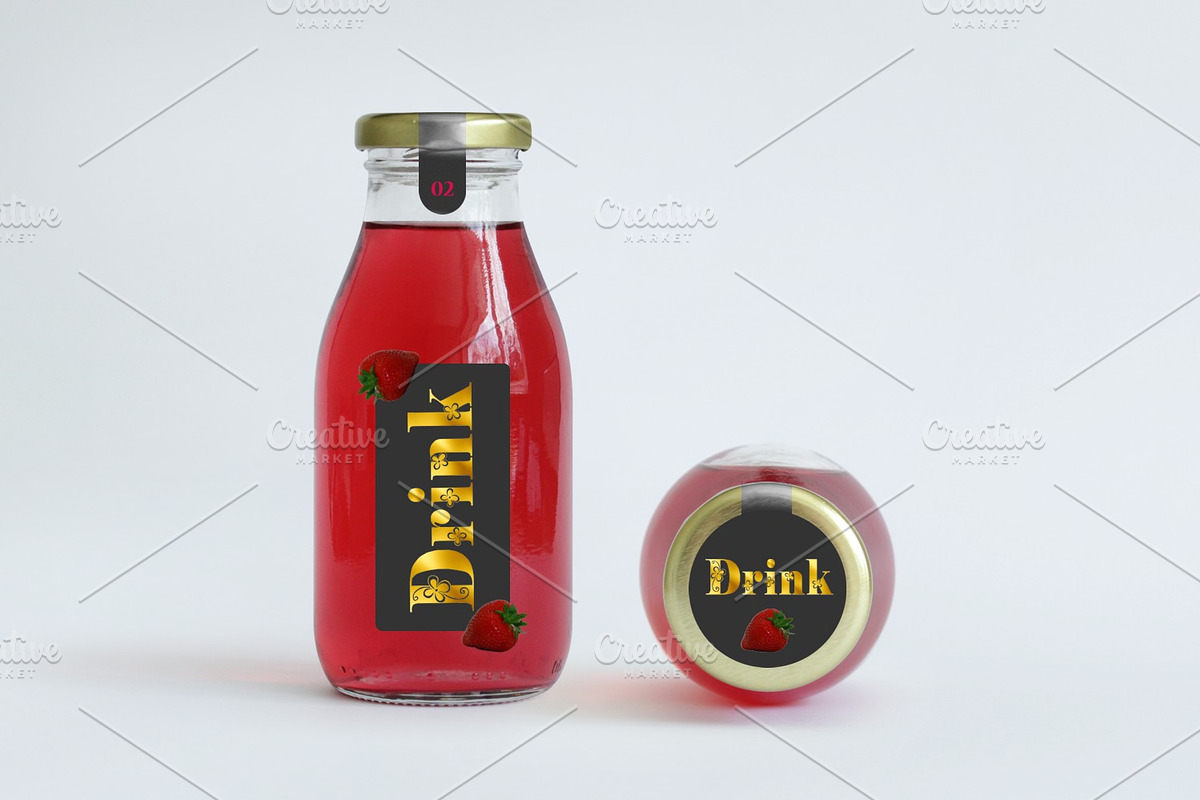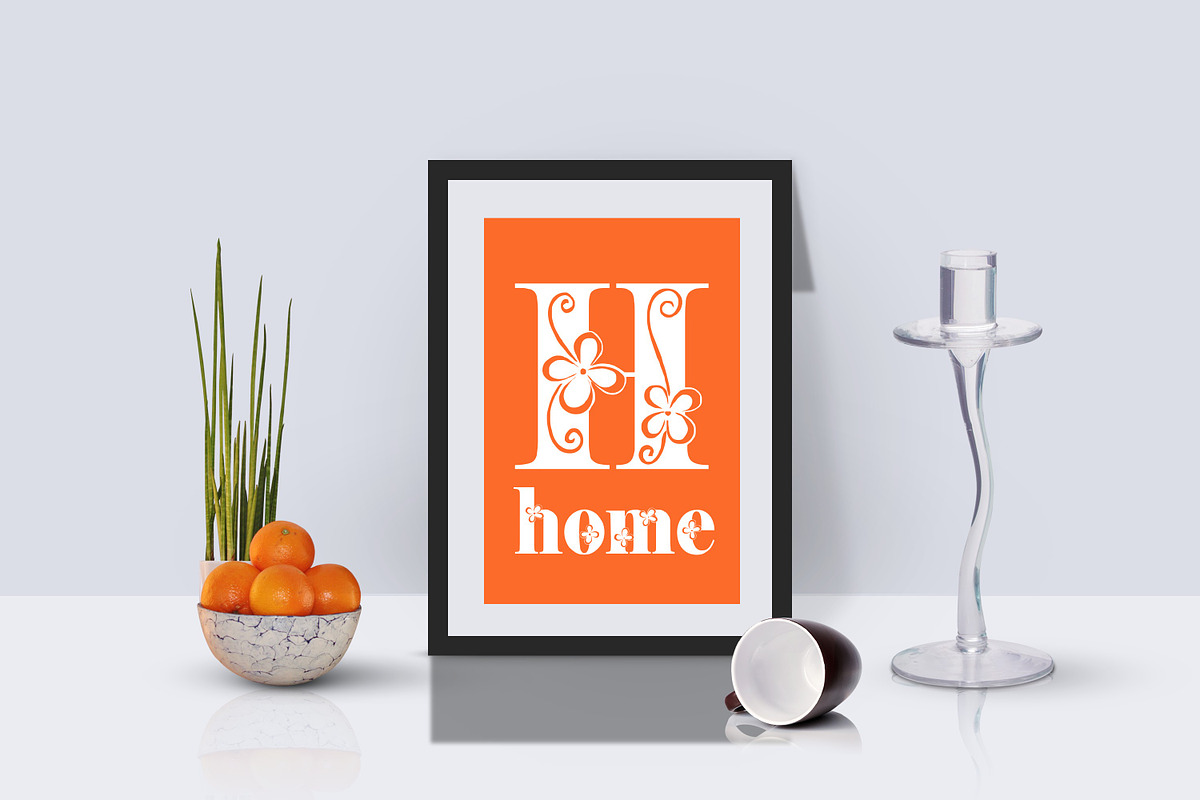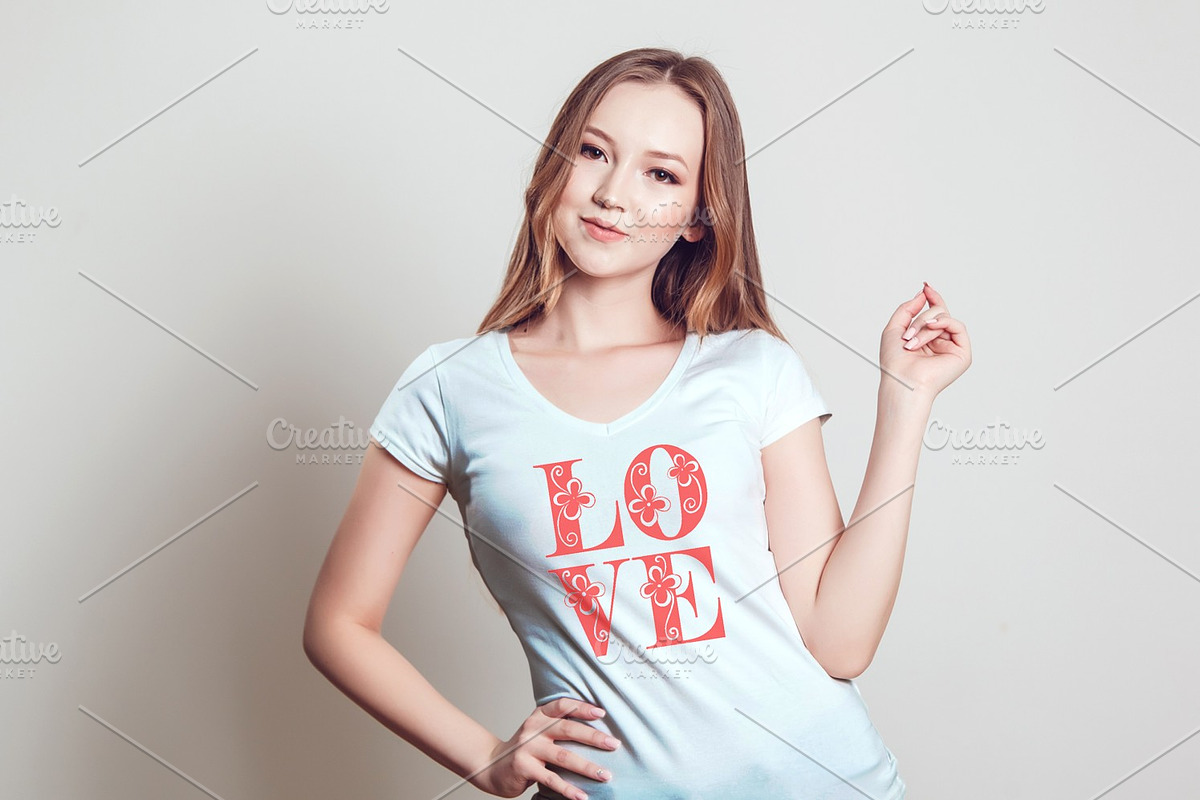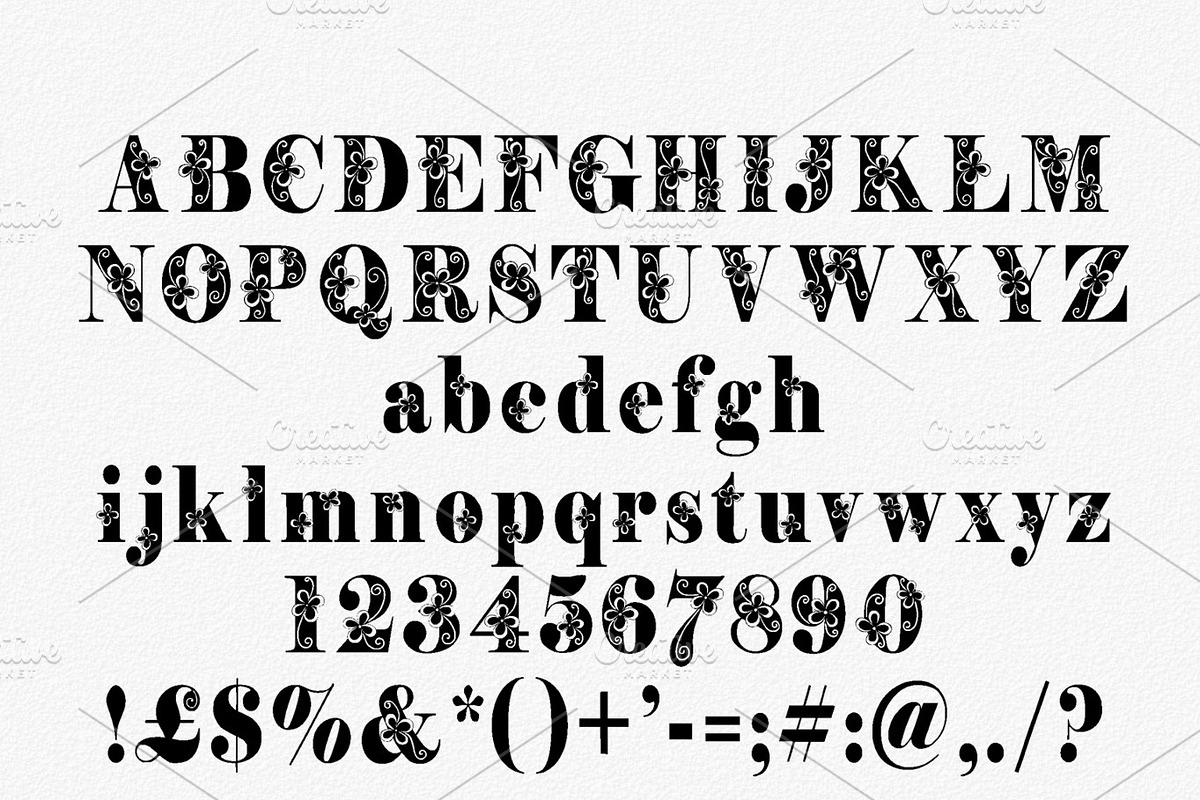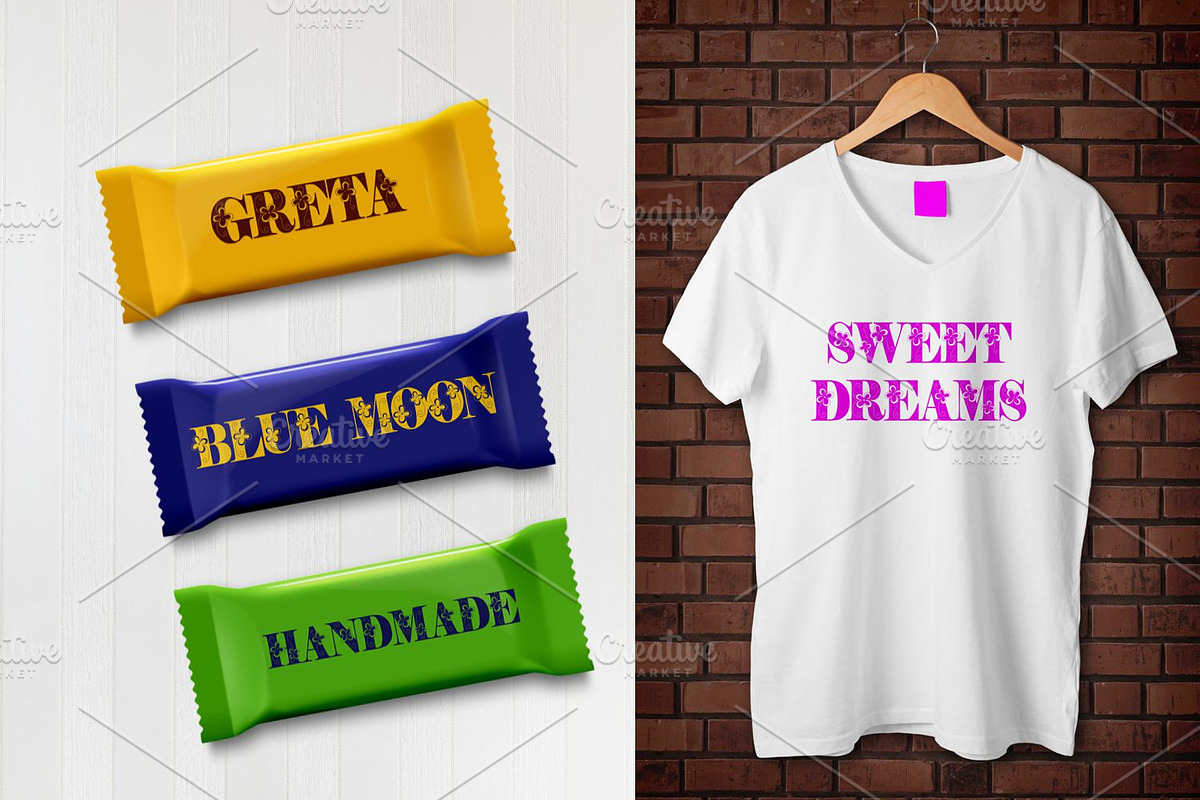
Storyteller Font
Storyteller a hand crafted typeface.
Why Storyteller Font is worth a look
Storyteller Font by Digital Typeface Studio fits naturally into Branding, posters, packaging, typography.